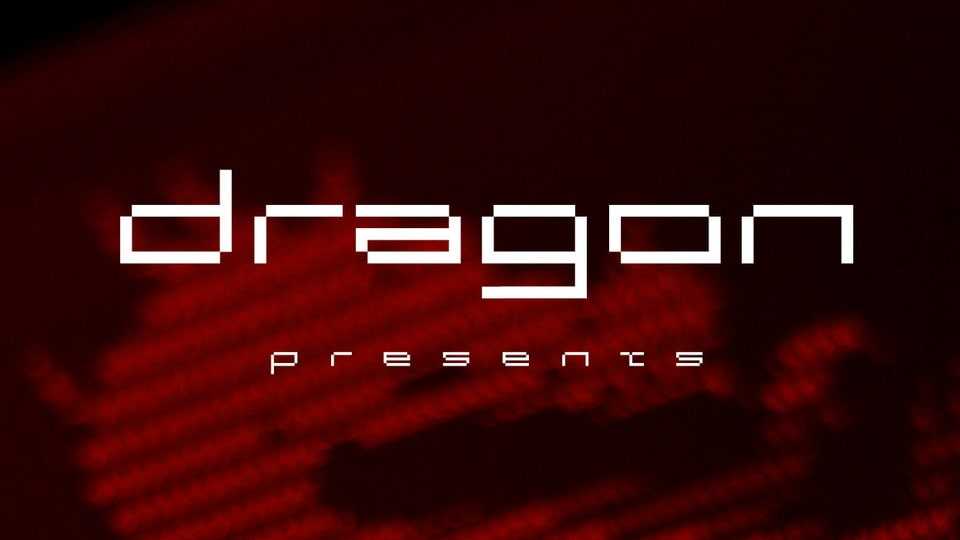
Download Groutpix F Torch font, a minimalist pixel typeface that brings a clean, modern look to classic pixel design with its bold yet simplified appearance.
Designer: ffeeaarr design